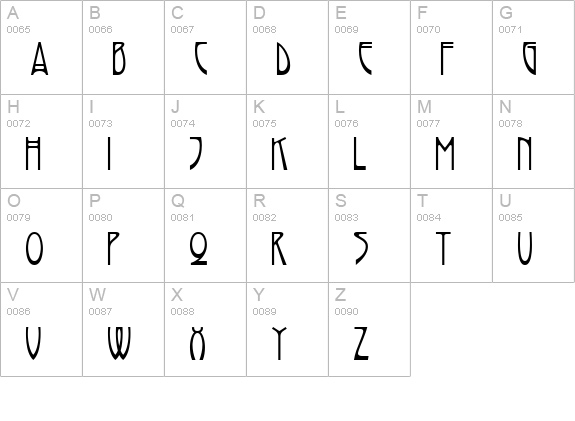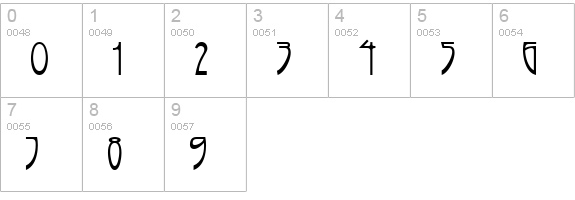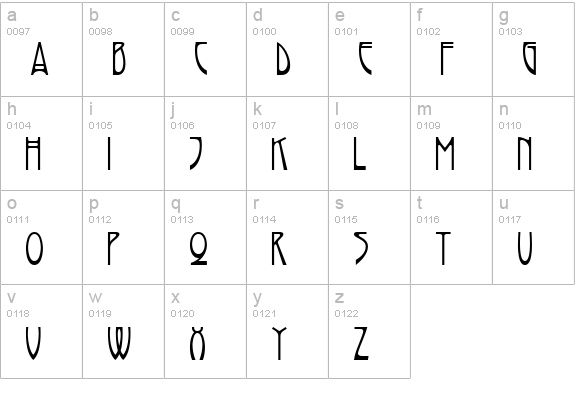
Rivanna NF font is a stunning display typeface that exudes elegance and sophistication. With its intricate details and stylish curves, this font is perfect for adding a touch of class to any design project. Whether you're working on a branding project, a logo design, or a poster, Rivanna NF font will make your text stand out with its unique charm. The best part about Rivanna NF font is that it is completely free to download at FontsMarket.com. This means that you can easily access this high-quality font without having to worry about any costs. So why wait? Enhance your designs today with Rivanna NF font and elevate your creative work to new heights.